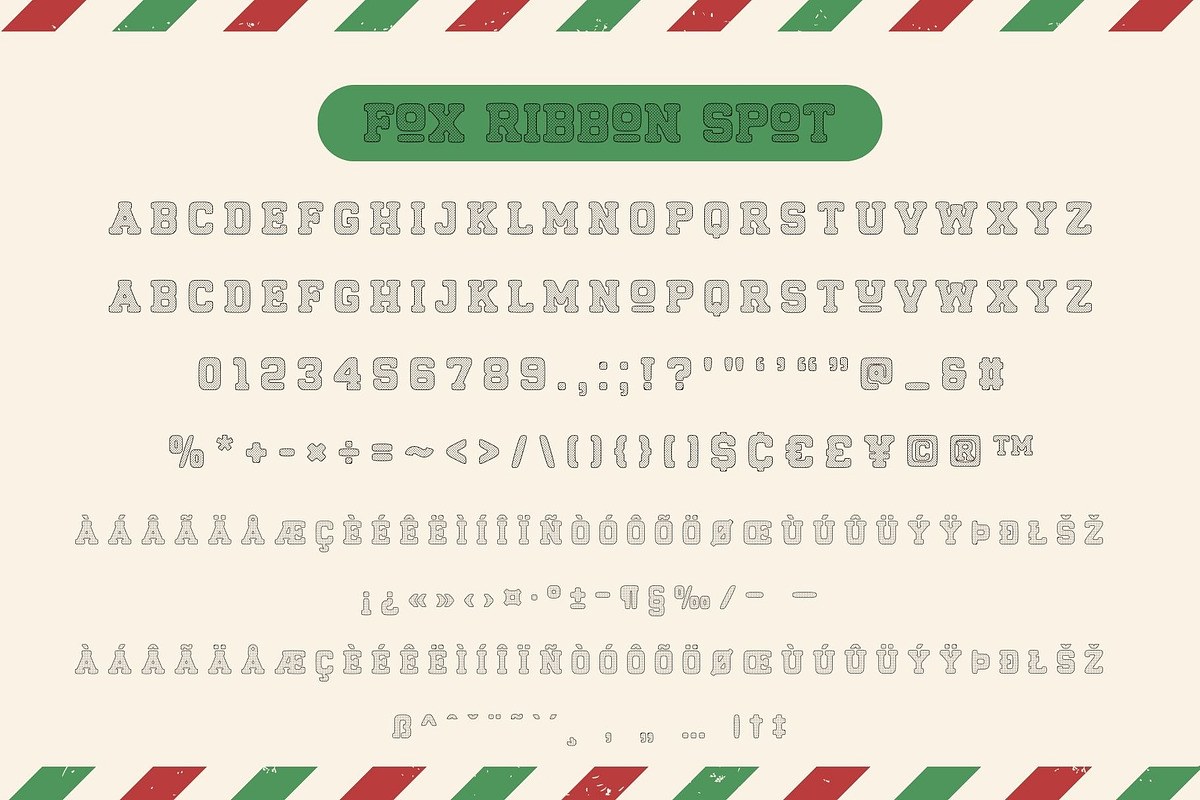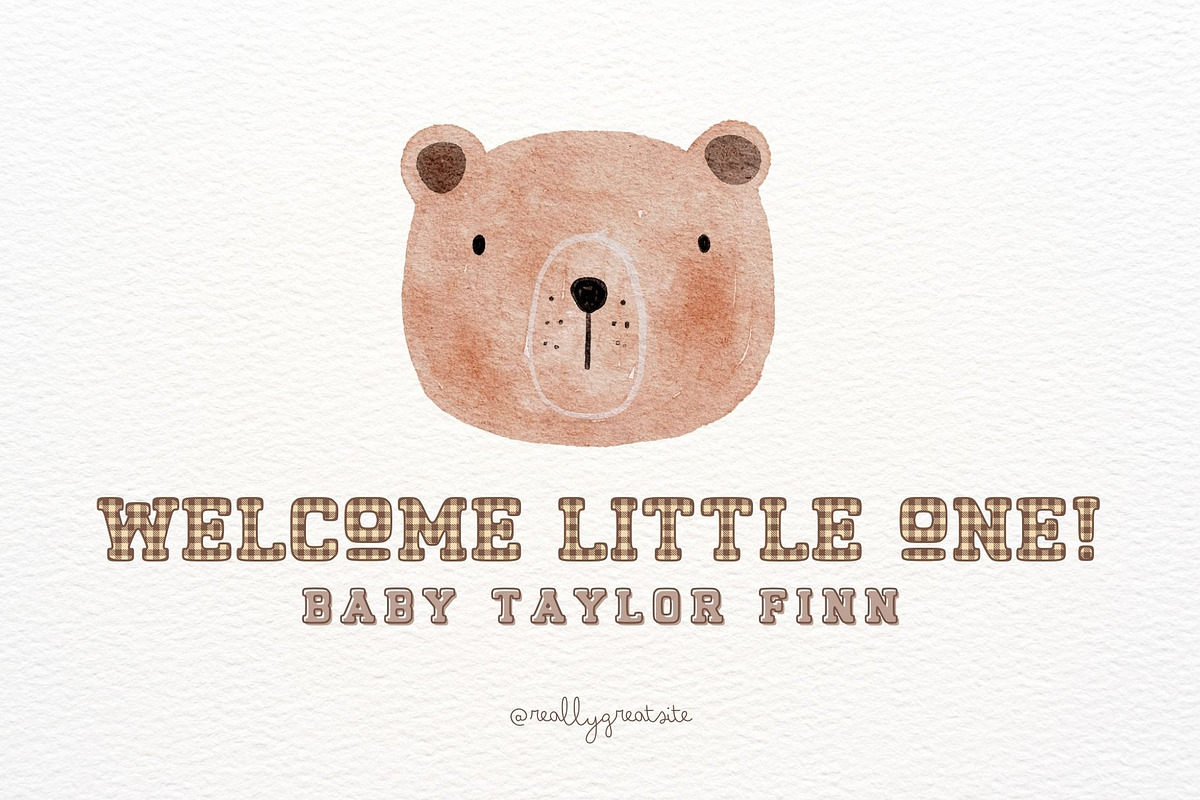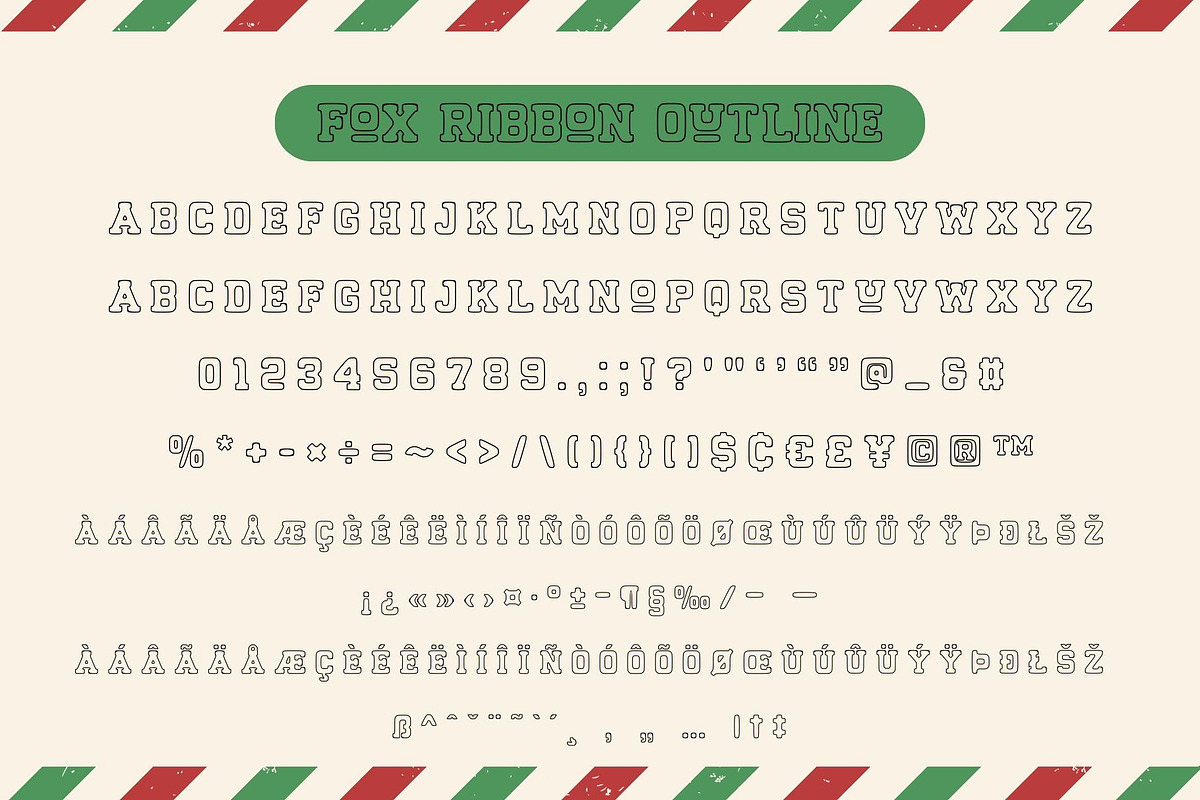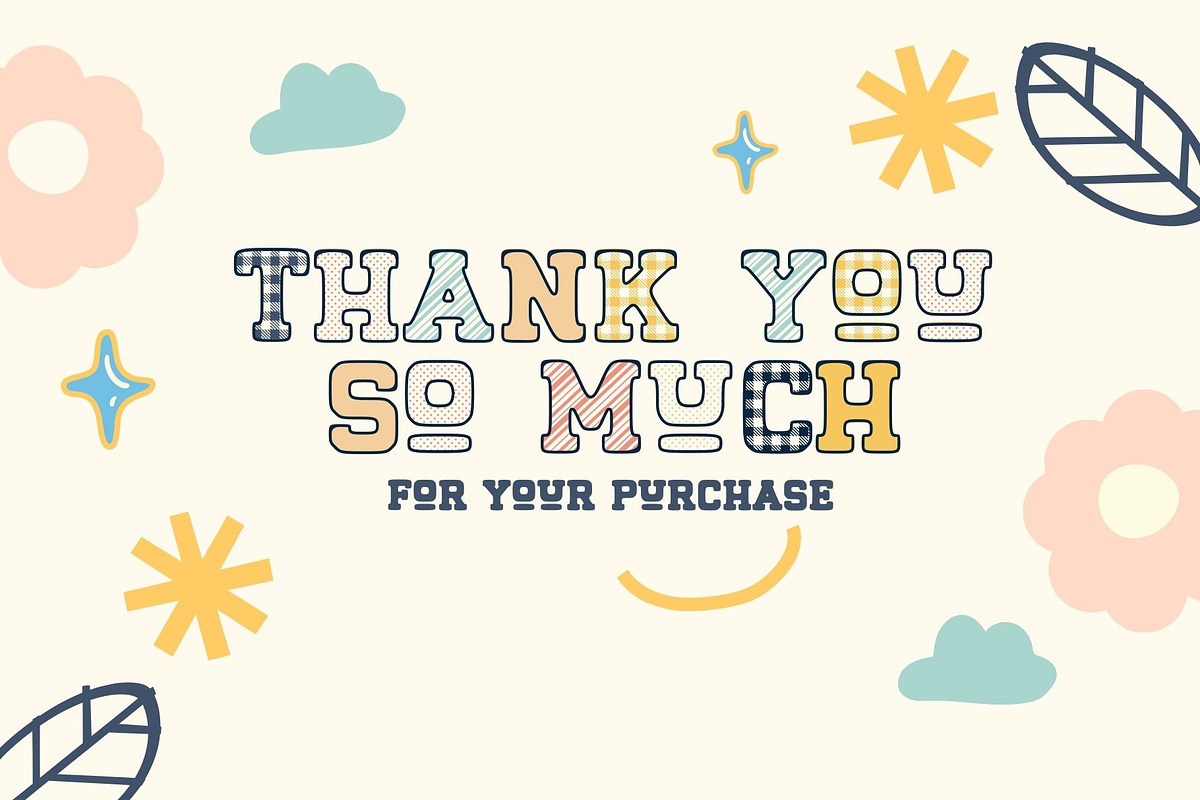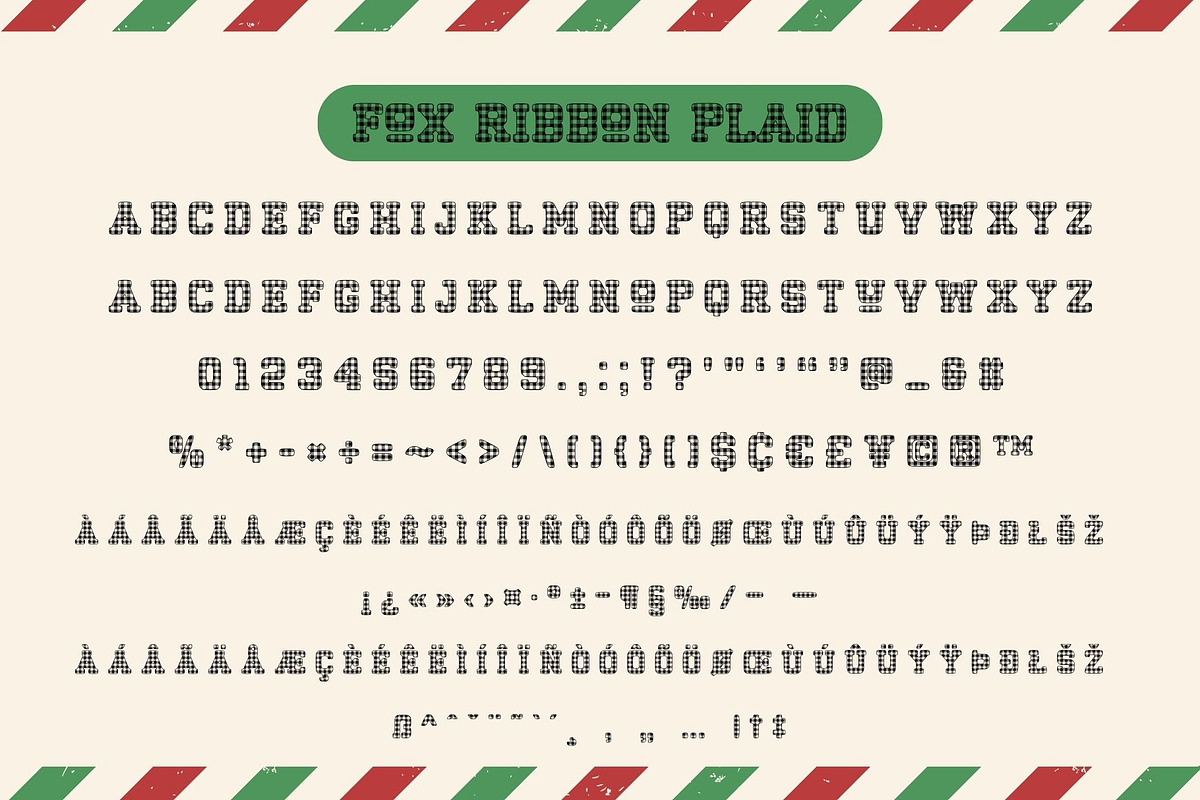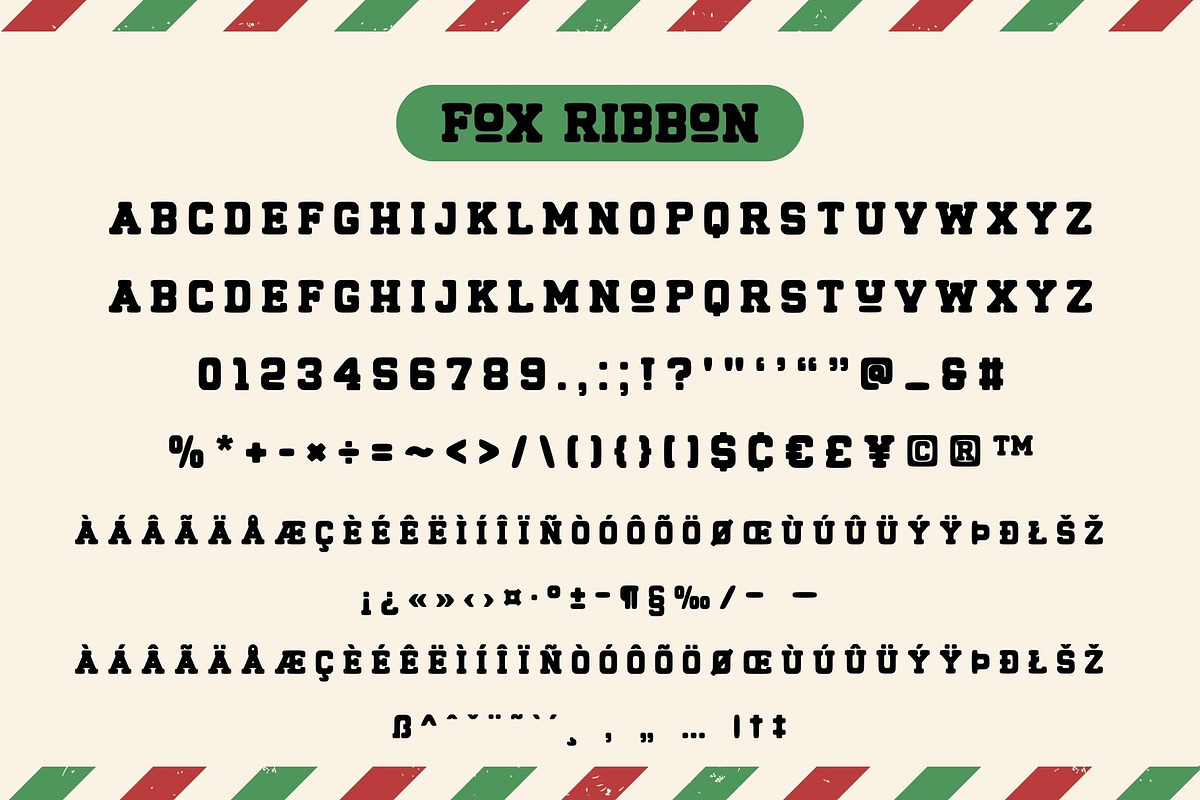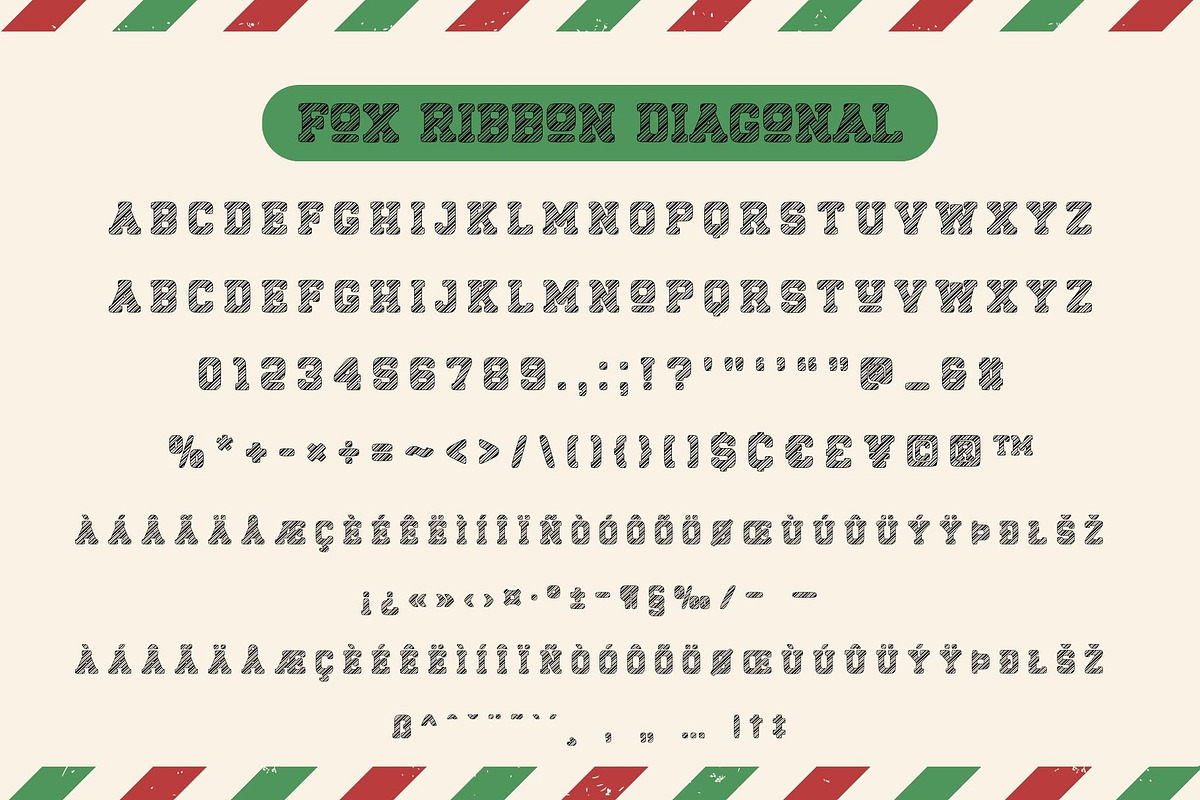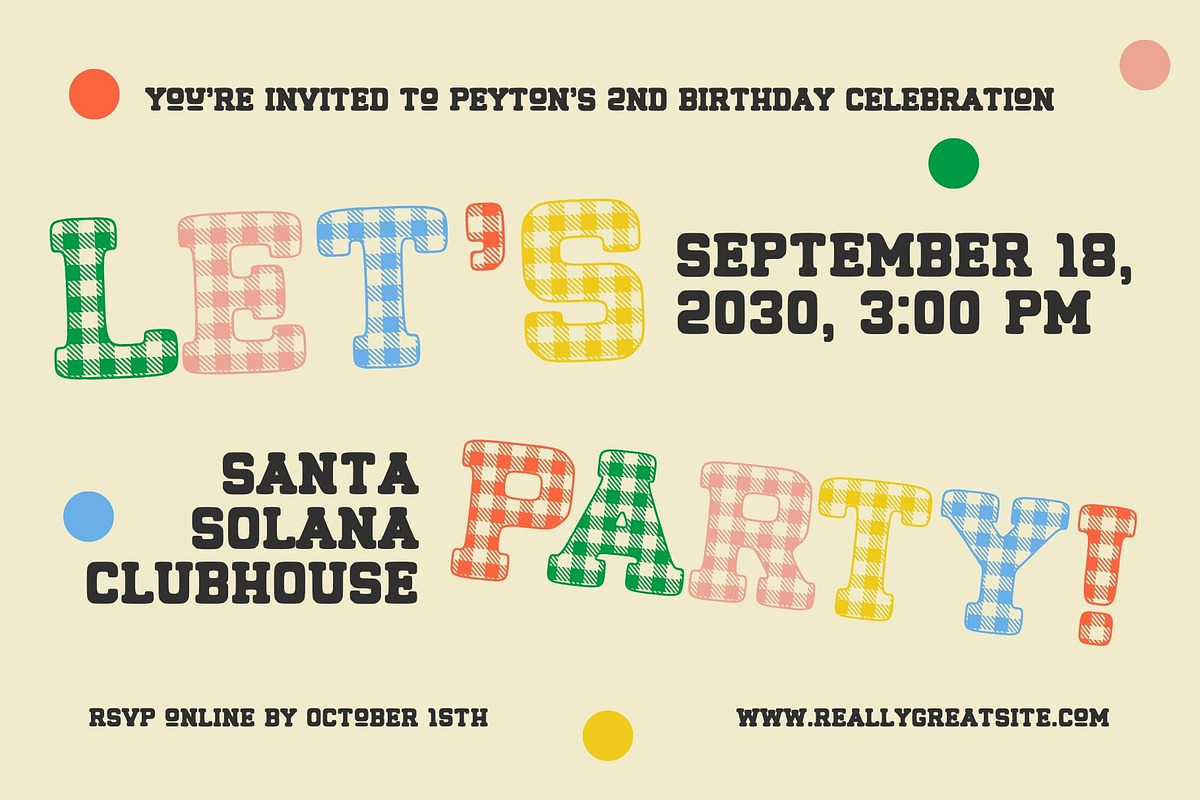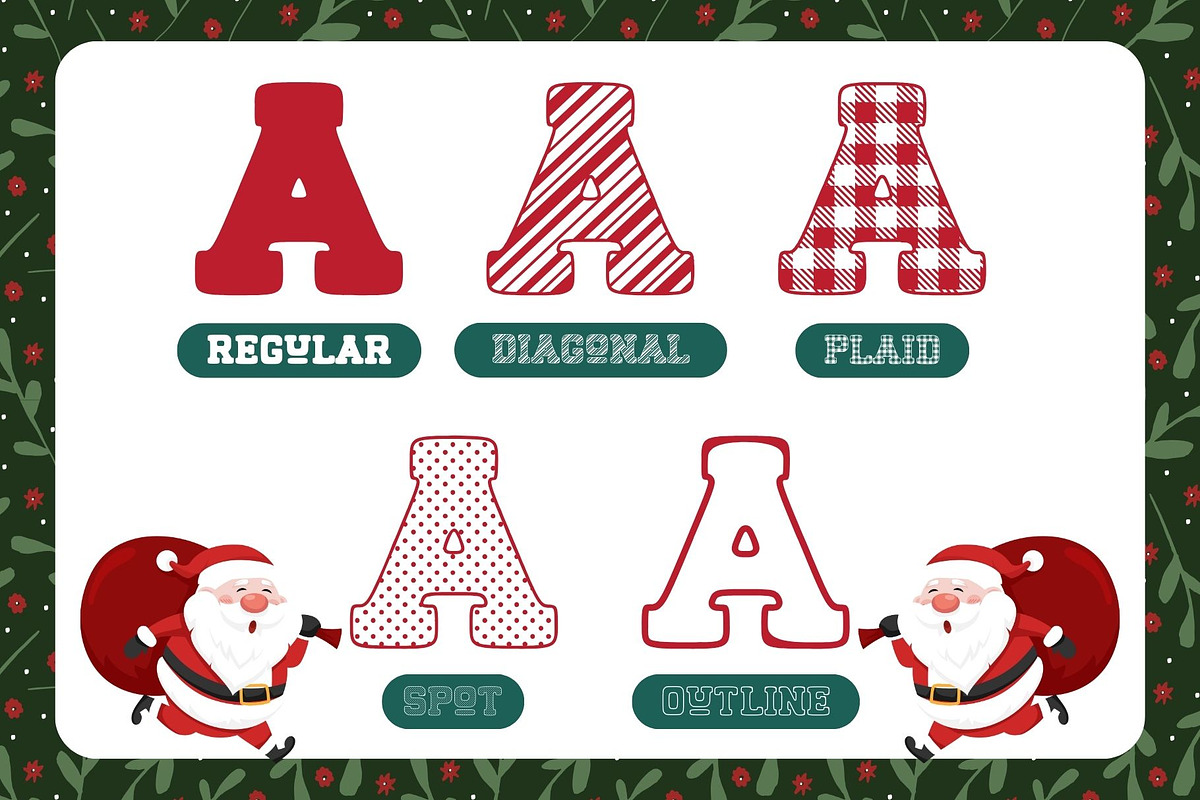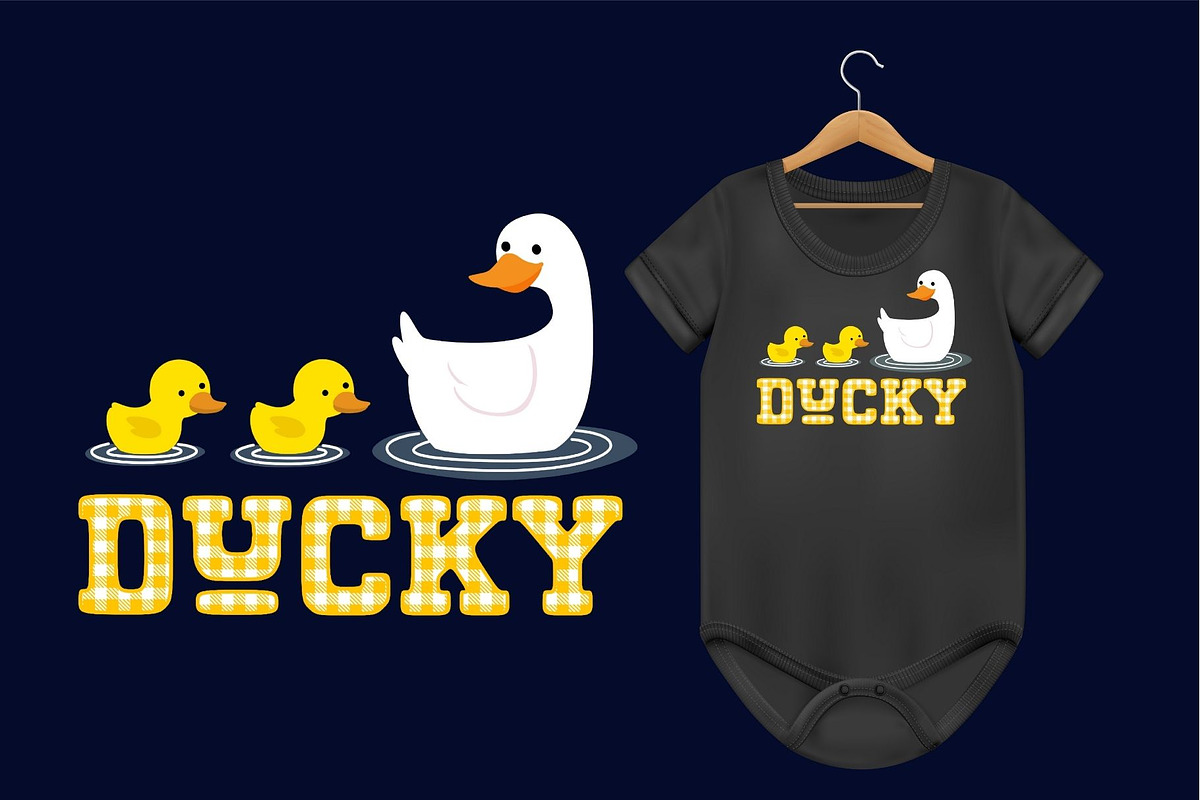
Fox Ribbon 5 Font Style
Fox Ribbon is a versatile font family featuring 5 unique styles that are cool, cute, and playful. Perfect for winter and Christmas-themed designs, this font is sure to capture your heart with its authentic charm. Use it to create stunning invitations, beautiful stationery art, eye-catching social media posts, or adorable greeting cards. Add it to your font library now, and start crafting spectacular designs!